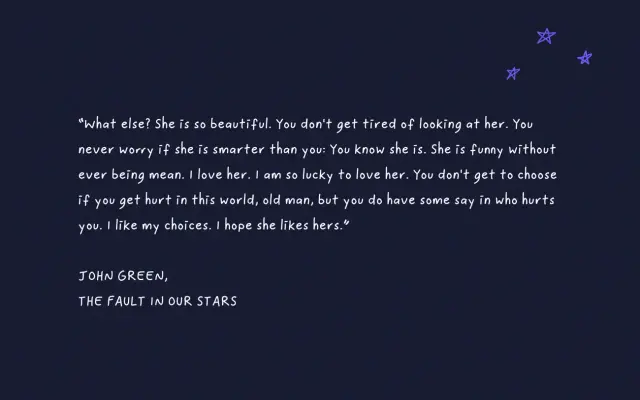
Poppy Fineliner
A casual pen handwriting font with two alternates per character and a set of over 100 hand-drawn doodle illustrations included.
Built to mimic natural pen handwriting, Poppy Fineliner includes two versions of each letter and number so repetition can be avoided by mixing alternates. The font ships with a collection of over 100 pen-sketched doodles, making it useful for projects that need hand-drawn decorative elements alongside the lettering. Suited to greeting cards, social media graphics and informal branding.
A casual pen handwriting font with multiple letter alternates and hand-drawn doodle extras, placing it firmly in the informal script/handwriting category.